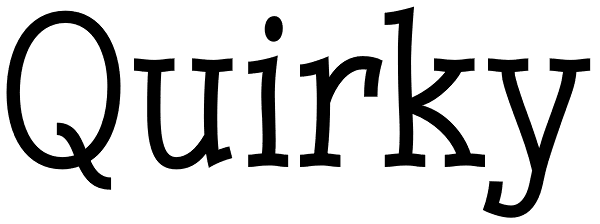
Quirky
The origin of Quirky lay in the Duke Ellington number It don't mean a thing if it ain't got that swing. For some time I had wanted to create a font from expanded stroked lines. I wanted to produce a light-hearted font, but with some classic touches...